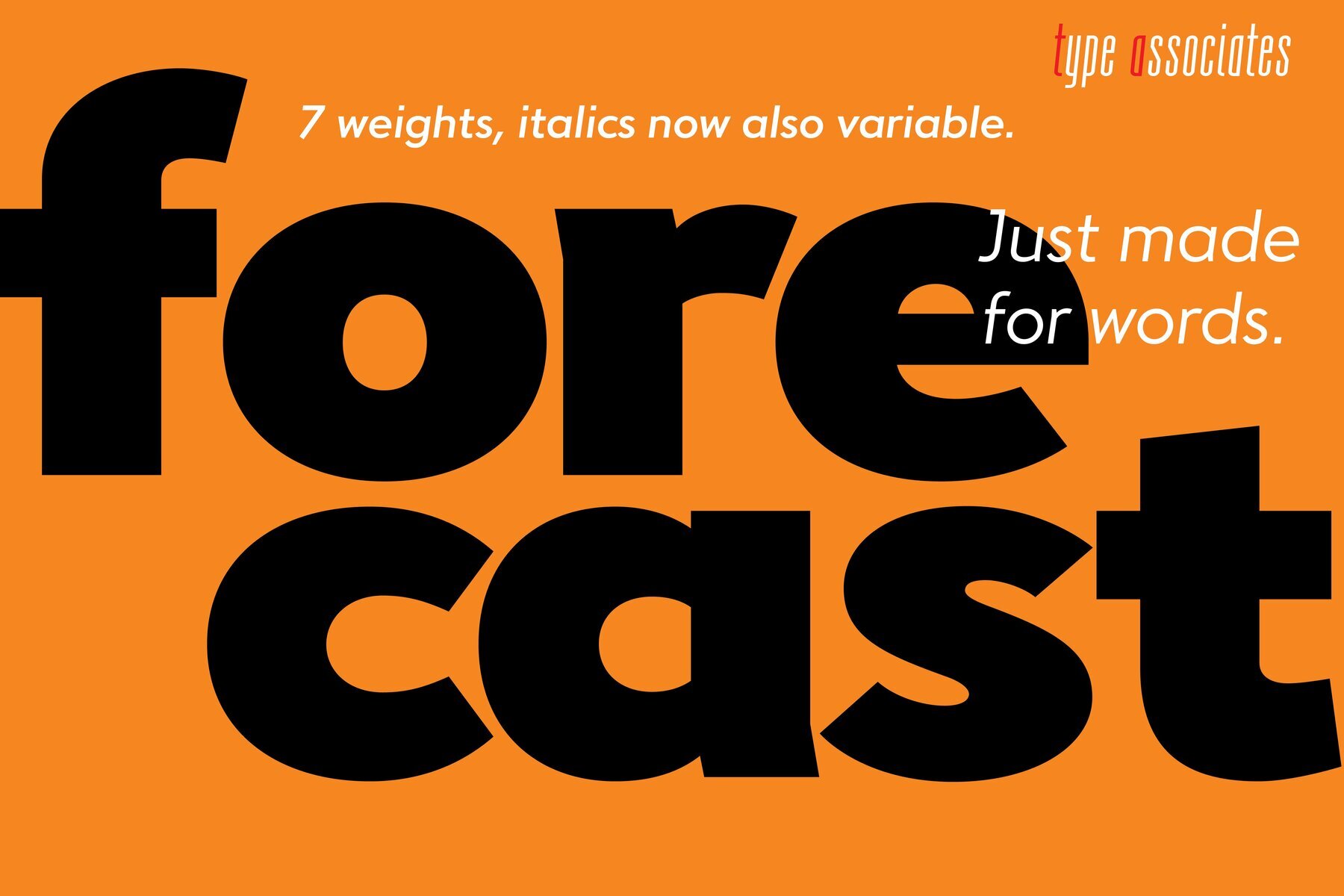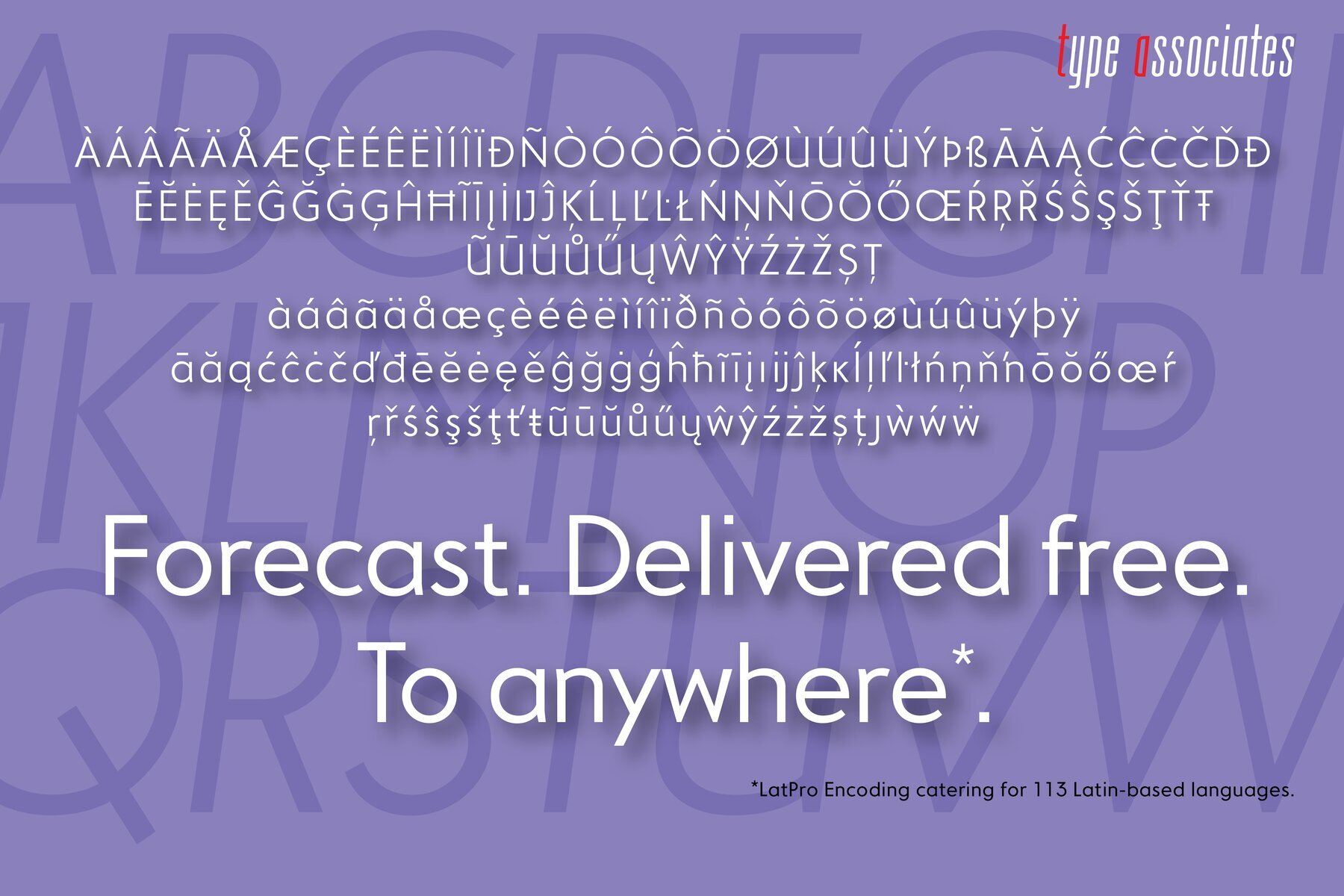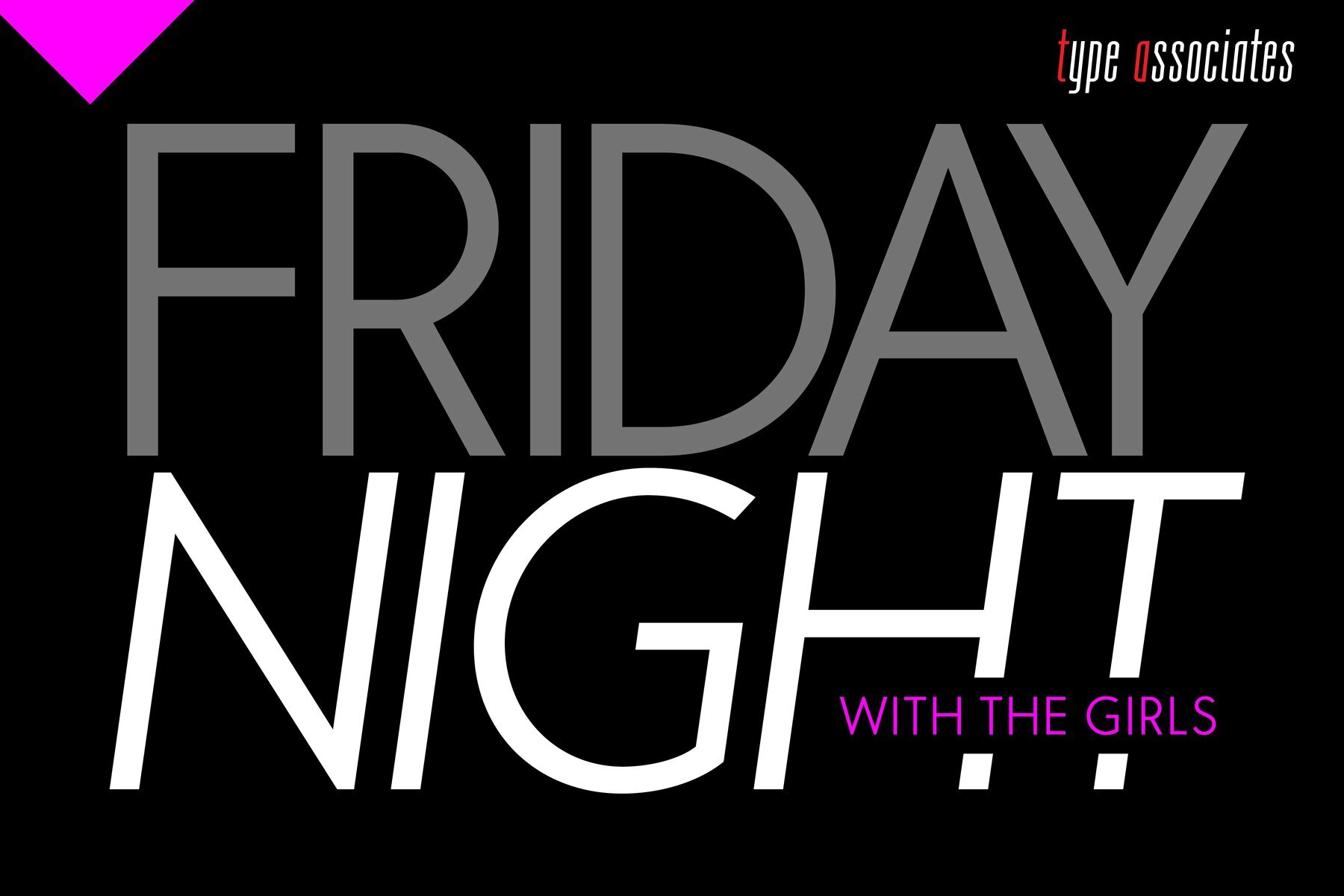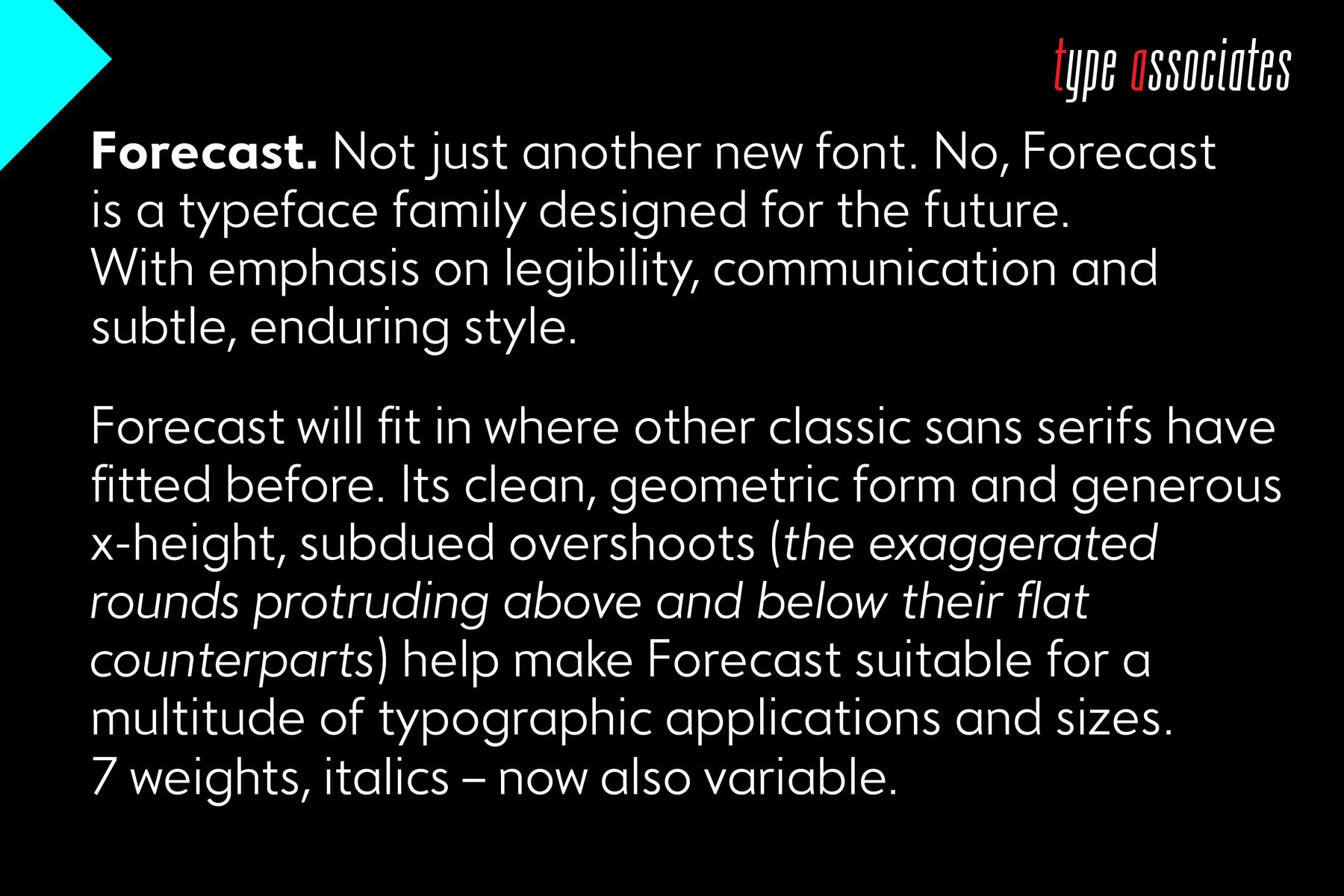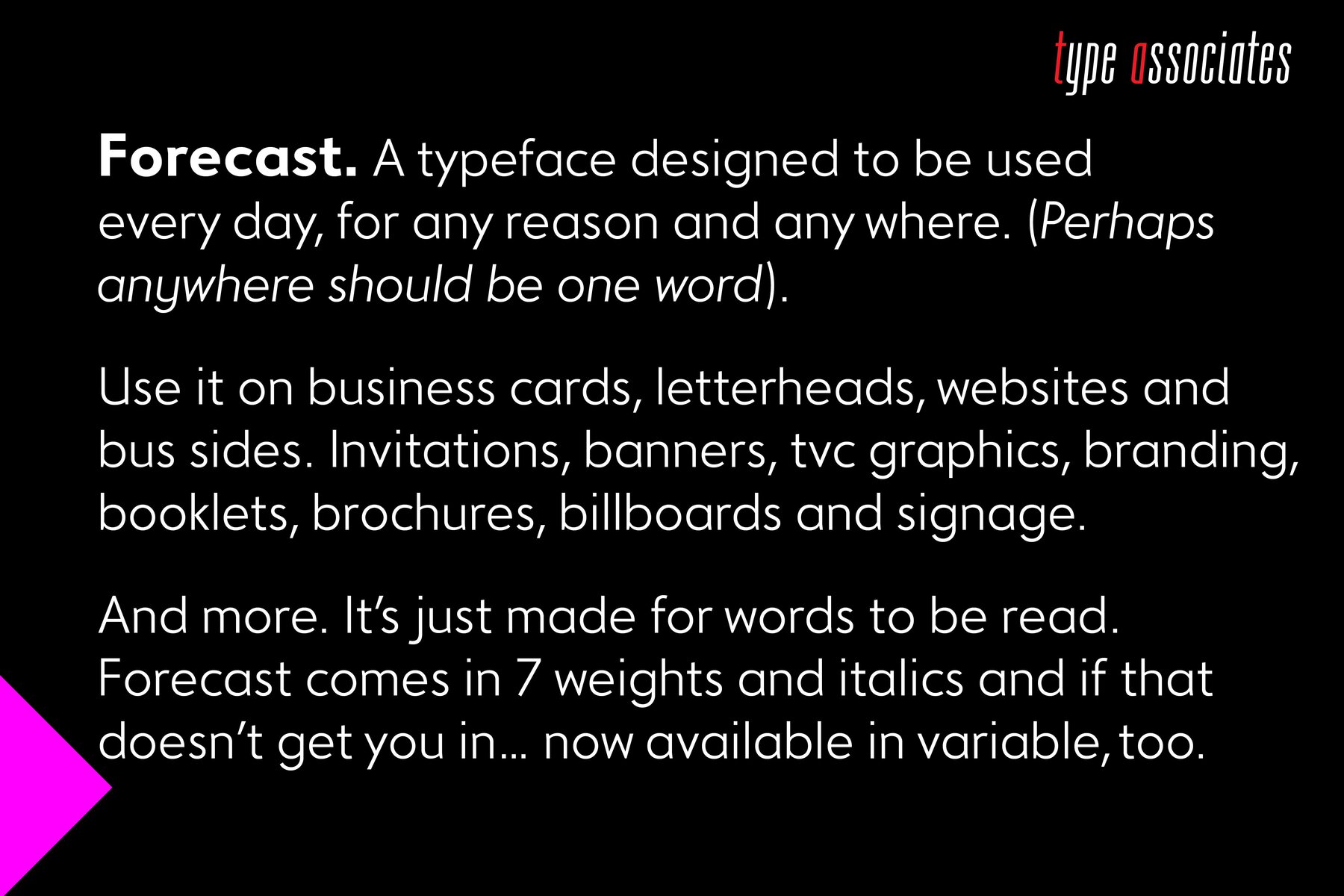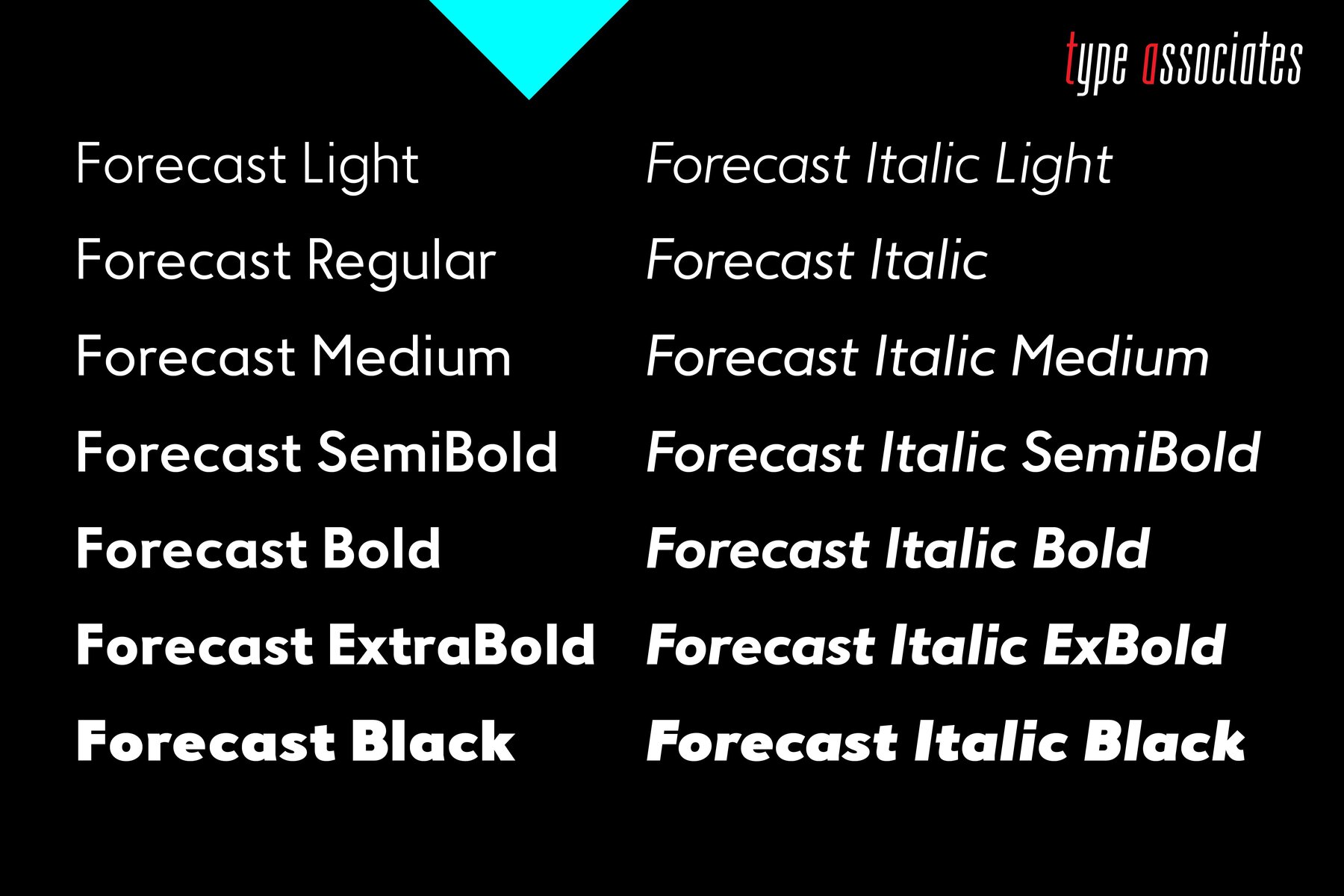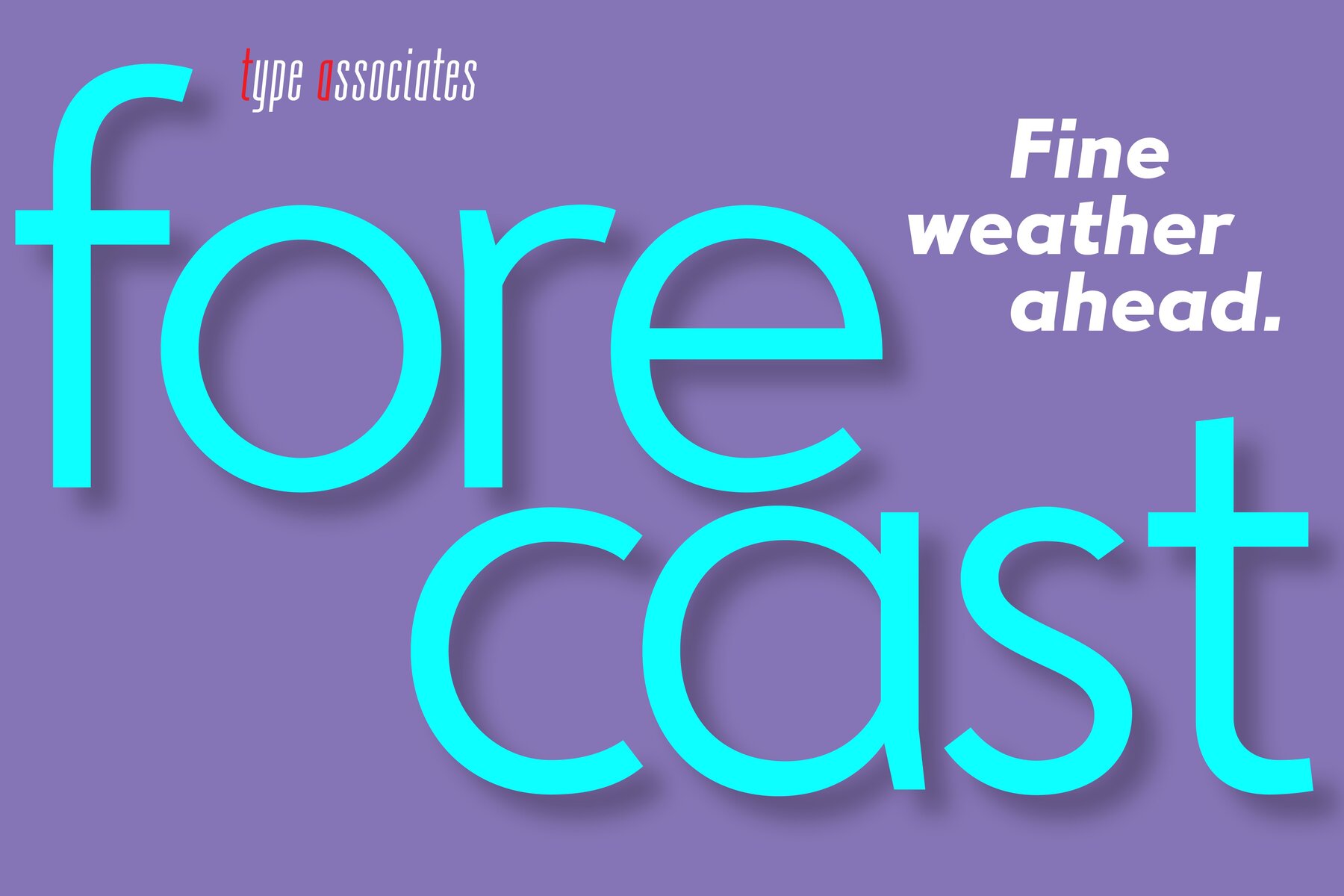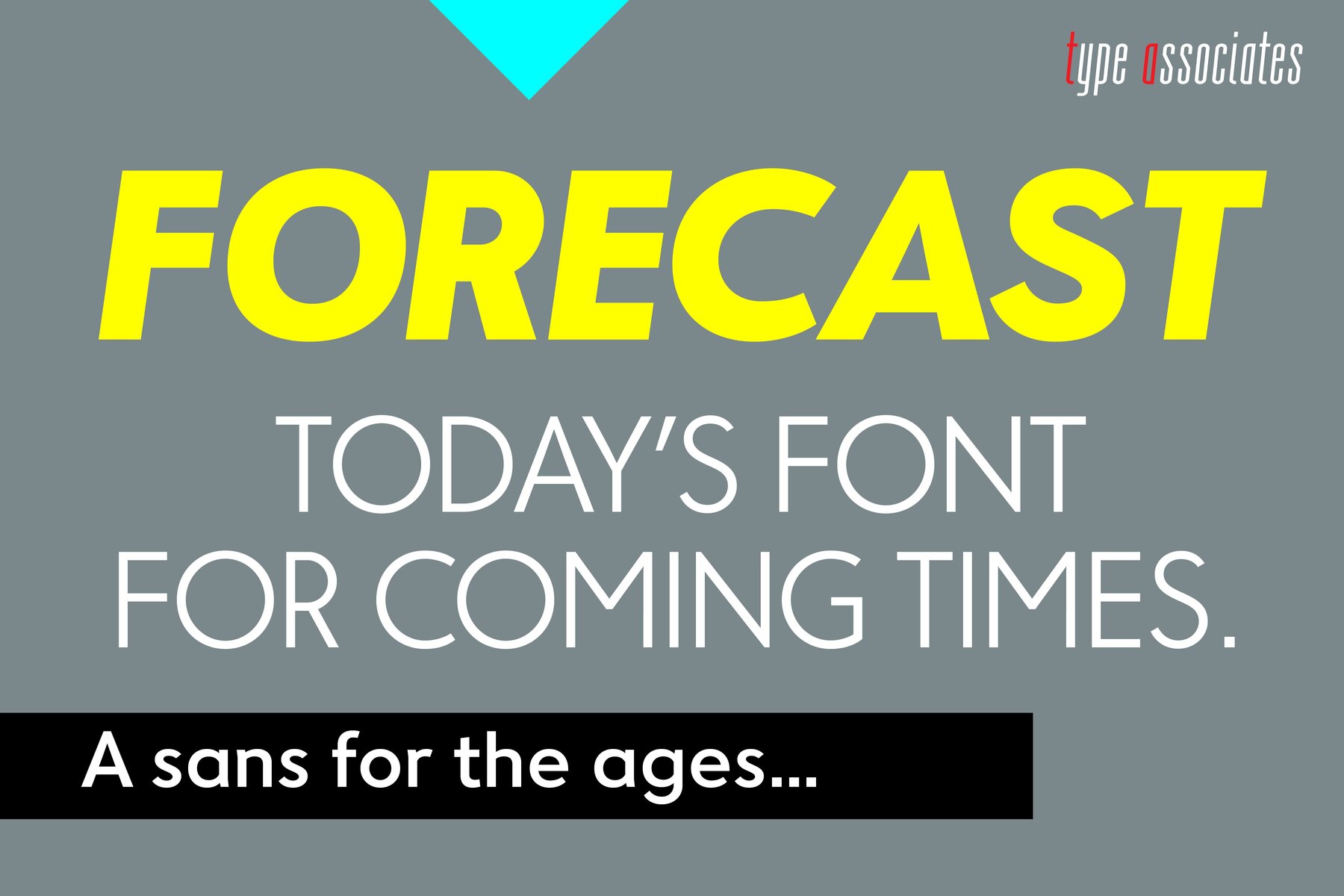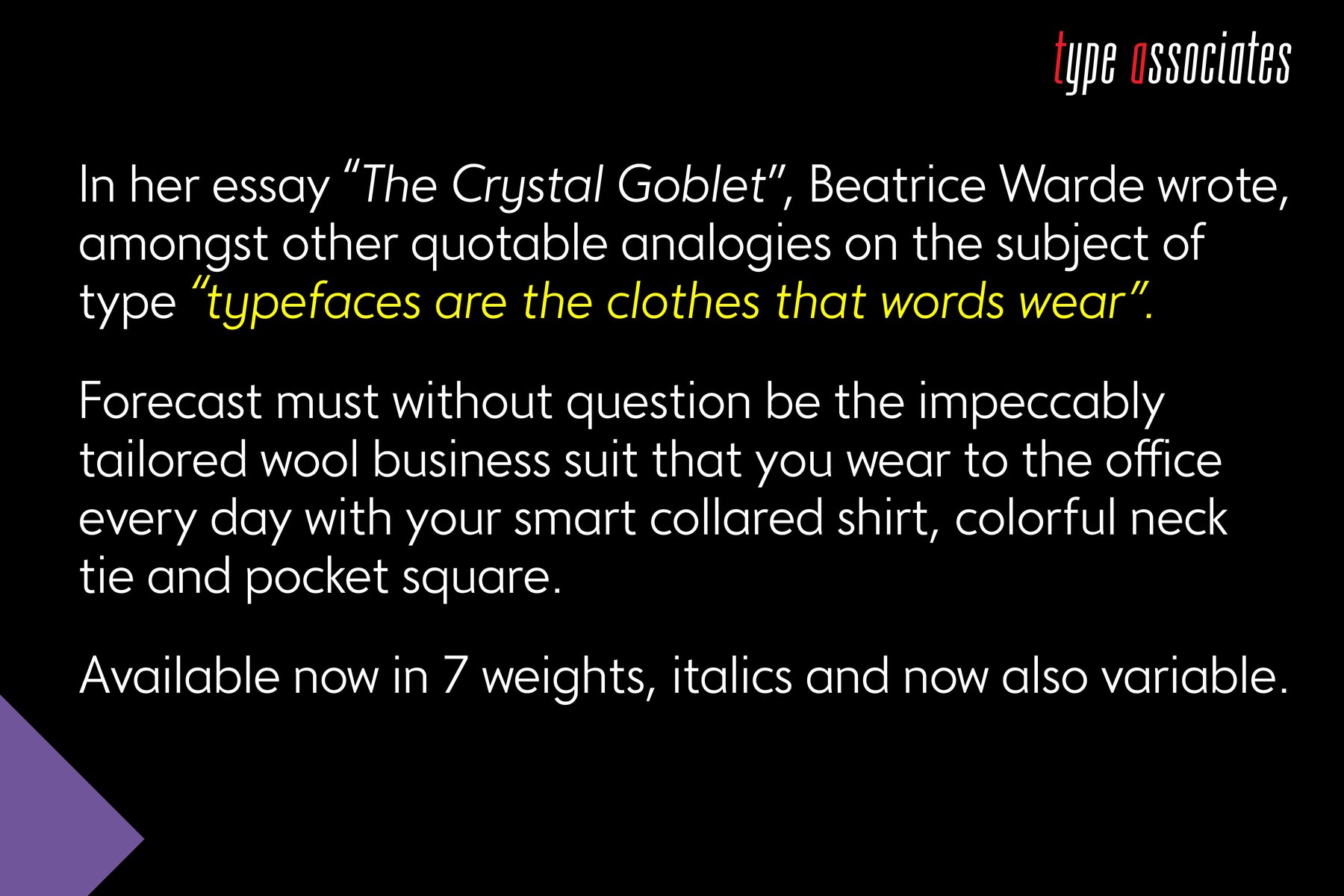
Forecast Font
Designed by Russell Bean between December 2020 and August 2023 as a pandemic project, Forecast takes cues from past geometrics such as Tempo, Futura and Avenir, is ideal for multi-purpose use, text, display, the web and wayfinding. The objective of Forecast is to provide a practical, swiss-army, use-everywhere design where readability is paramount. Available in 7 weights with italics a total of 14 styles all kerned to perfection. LatPro encoding – 395 glyphs supports 90 languages.